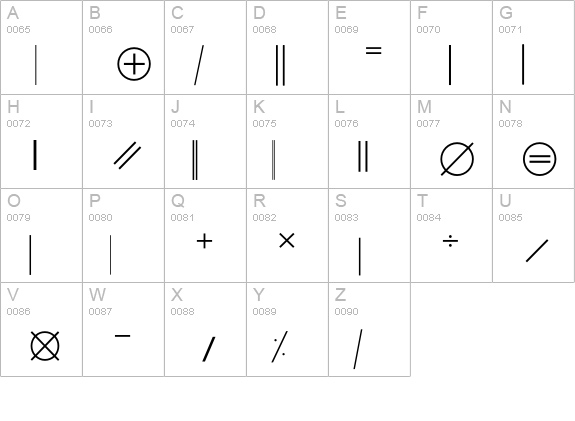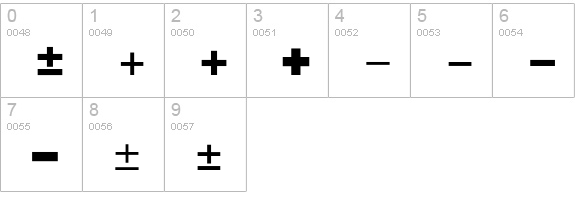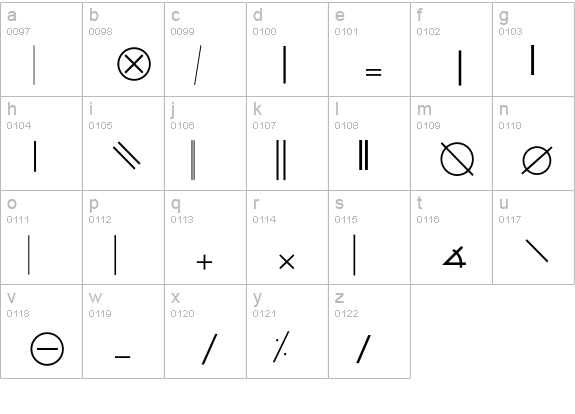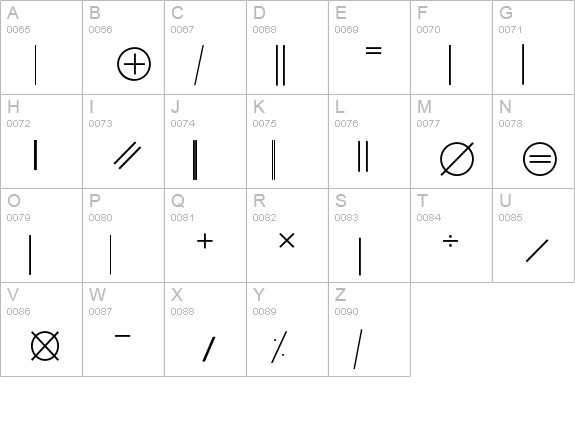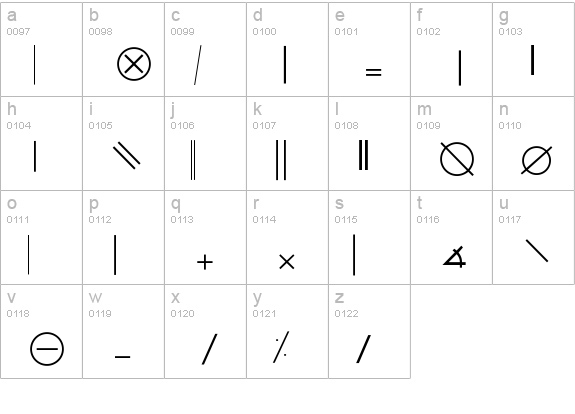
MathTechnicalP04 Font Details
MathTechnicalP04 is a unique and versatile font that is perfect for all your mathematical and technical needs. With its clean and modern design, this font is sure to make your equations and formulas stand out. Whether you are a student, a teacher, or a professional in the field of science or engineering, MathTechnicalP04 is the font you need to bring clarity and professionalism to your work. This font features a wide range of mathematical symbols, including numbers, operators, Greek letters, and more. Each character is carefully crafted to ensure precision and accuracy, making it easy for readers to understand complex mathematical concepts. The consistent and legible design of MathTechnicalP04 ensures that your equations will be easily readable, even at small sizes. One of the best things about MathTechnicalP04 is that it is completely free. You can download this font for free at FontsMarket.com, a trusted source for high-quality fonts. This means that you can use this font in all your projects, whether they are personal or commercial, without worrying about any licensing restrictions. MathTechnicalP04 is compatible with a wide range of software and applications, including word processors, graphic design software, and web design tools. This makes it easy to incorporate this font into your existing workflow, saving you time and effort. In addition to its functionality, MathTechnicalP04 also offers a touch of elegance and sophistication. The clean lines and modern aesthetic of this font make it a great choice for presentations, reports, and other professional documents. Impress your audience with the sleek and polished look of MathTechnicalP04. So why wait? Download MathTechnicalP04 for free at FontsMarket.com and take your mathematical and technical documents to the next level. With its versatility, readability, and professional design, this font is a must-have for anyone working with numbers and equations. Experience the power of MathTechnicalP04 today and see the difference it can make in your work.